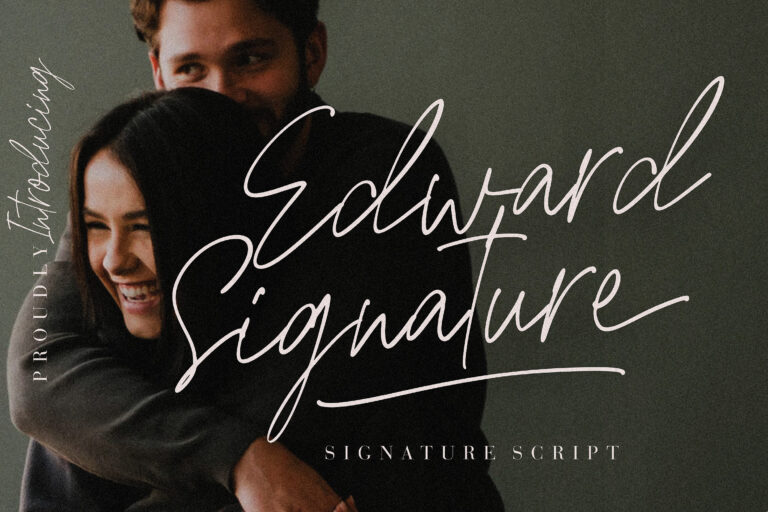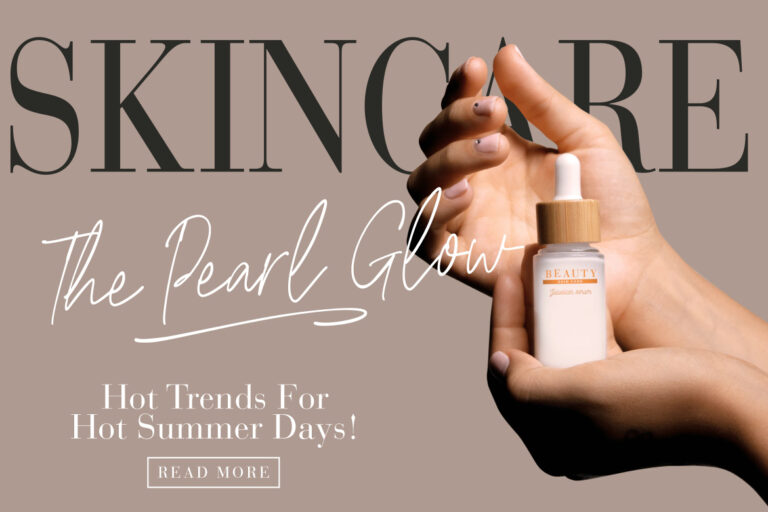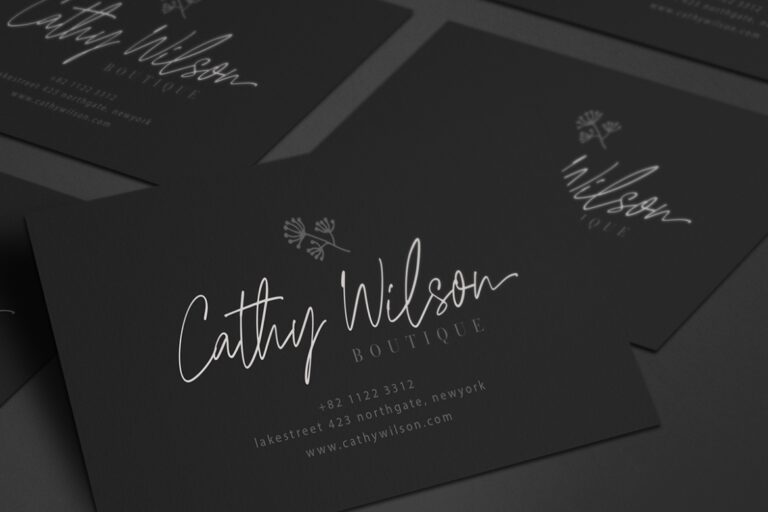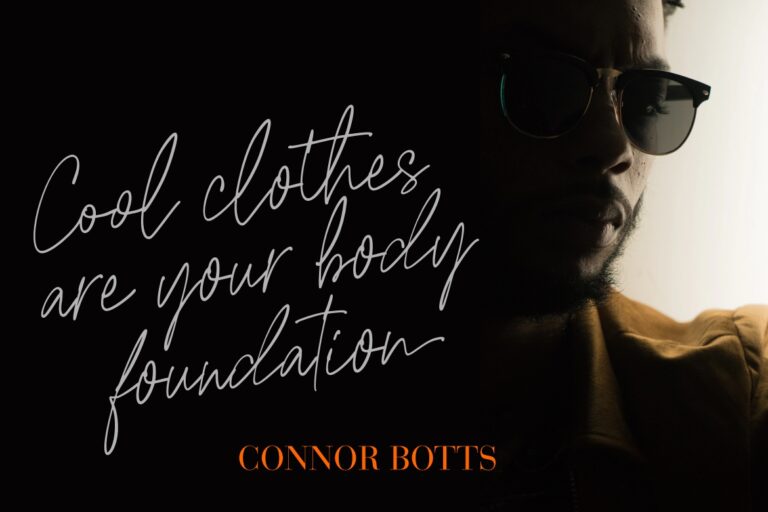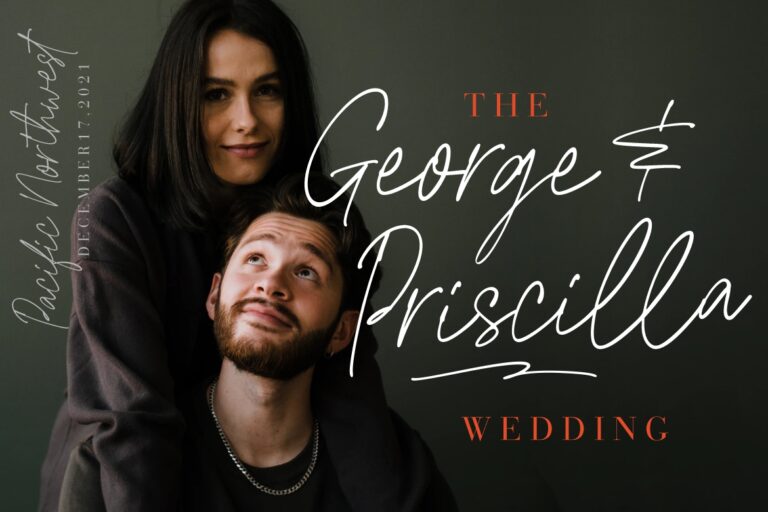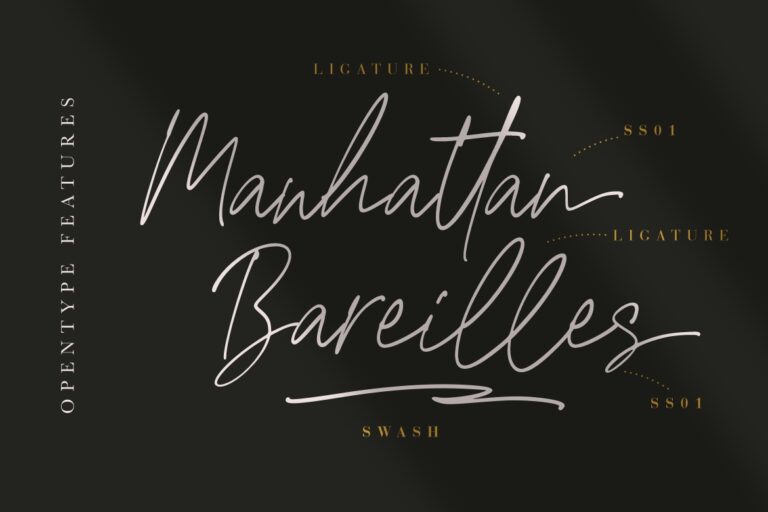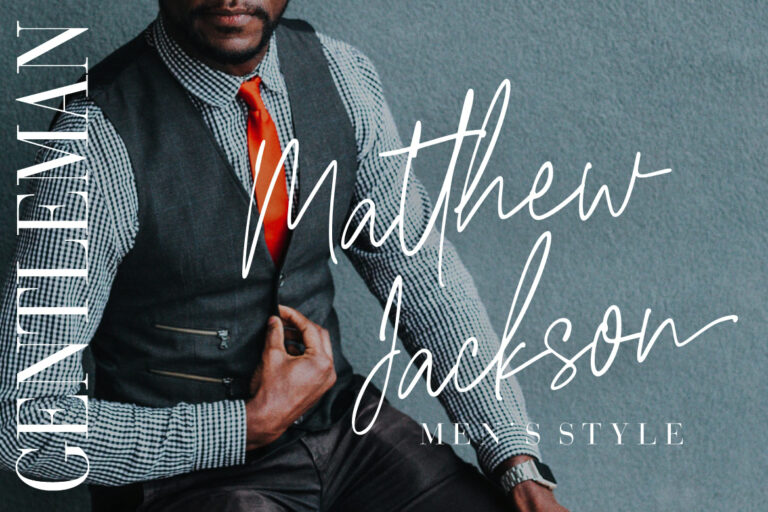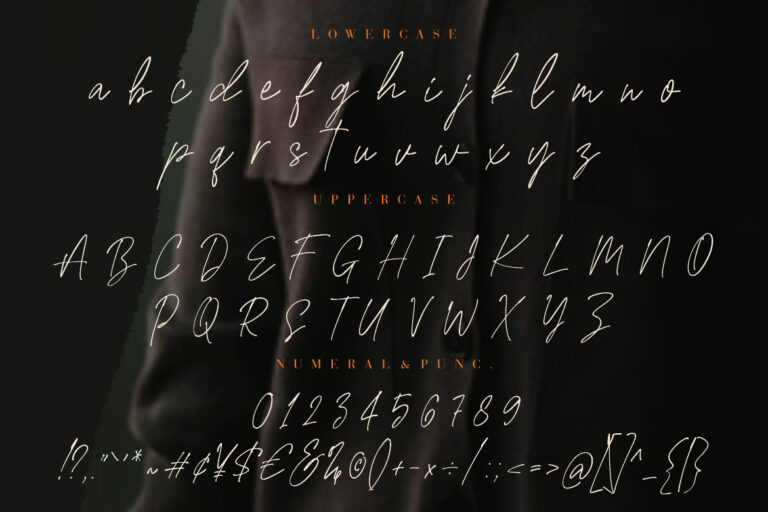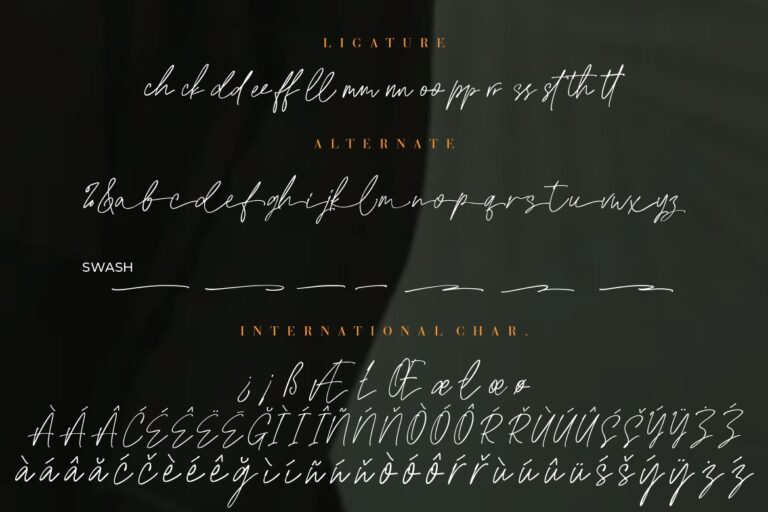
Edward Signature Script
Edward Signature is stylish script font looks elegant and classy for awesome project.
Edward Signature is perfect for branding projects, logo, wedding designs, social media posts, advertisements, product packaging, product designs, label, photography, watermark, invitation, stationery and any projects that need handwriting taste.
- Ligature, Alternate & Swashes